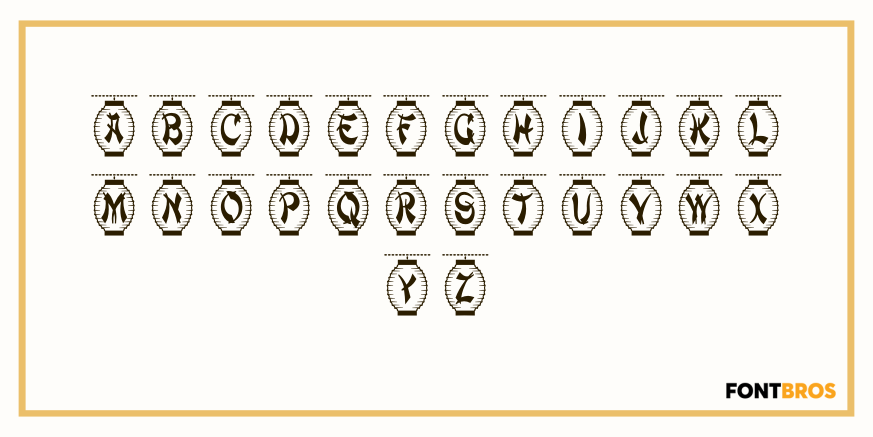
Paper Lanterns
Font Family by Solotype
At the very least, you'll need this for the Chinese New Year celebration.
This was designed in the year of the monkey, and includes all the usual accents for Western European languages. Caps have tassels, lowercase have no tassels.